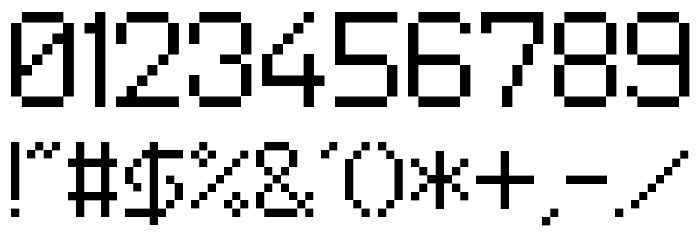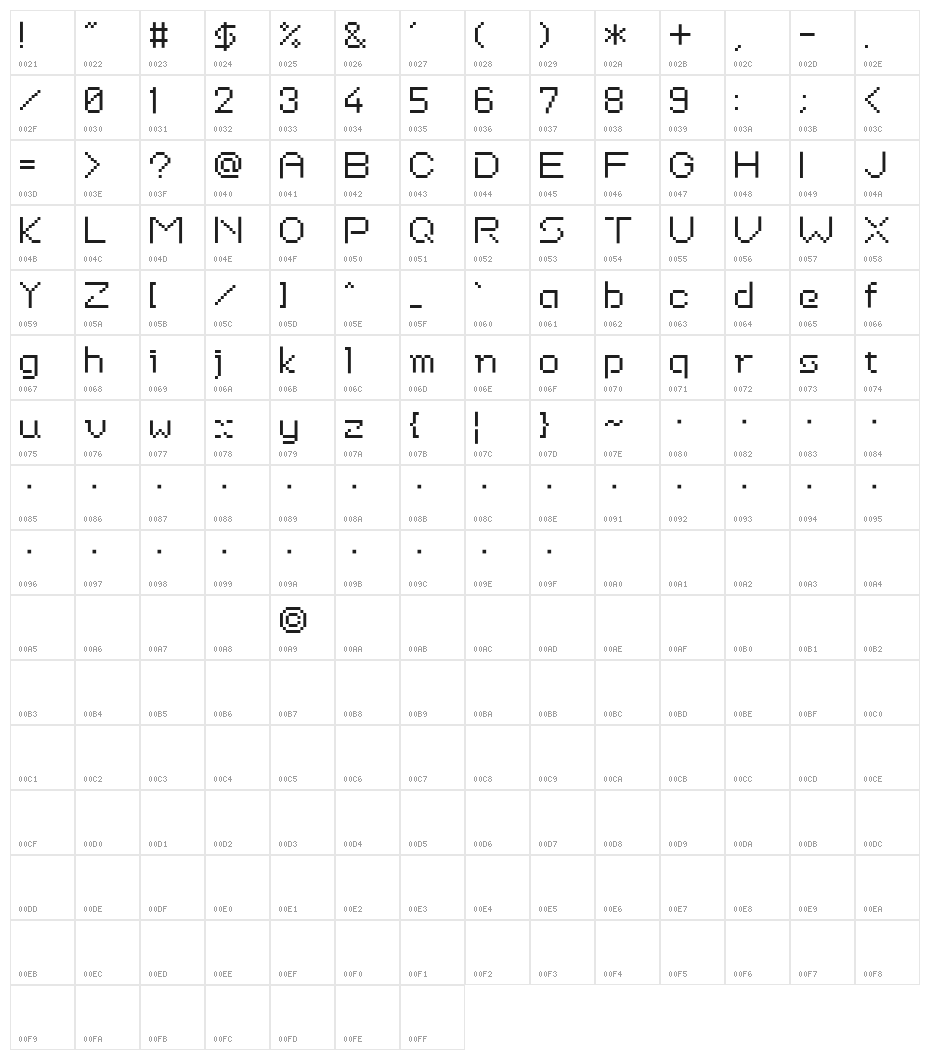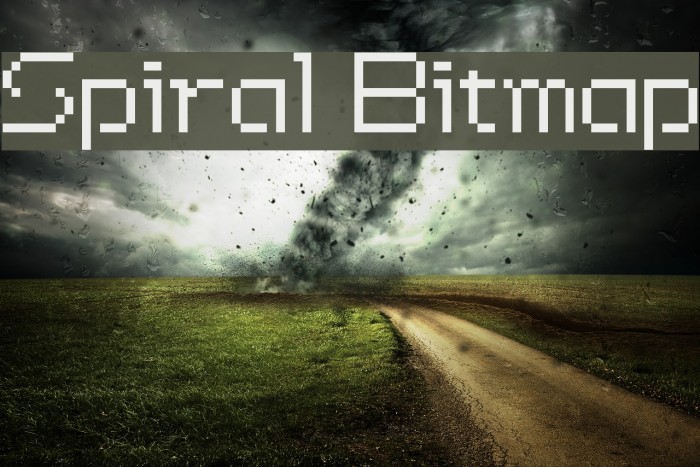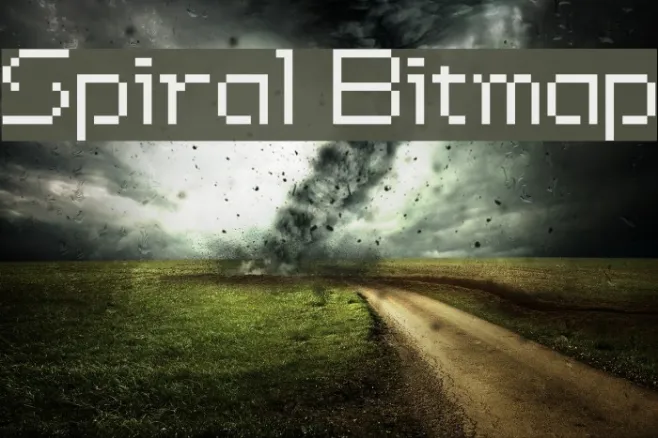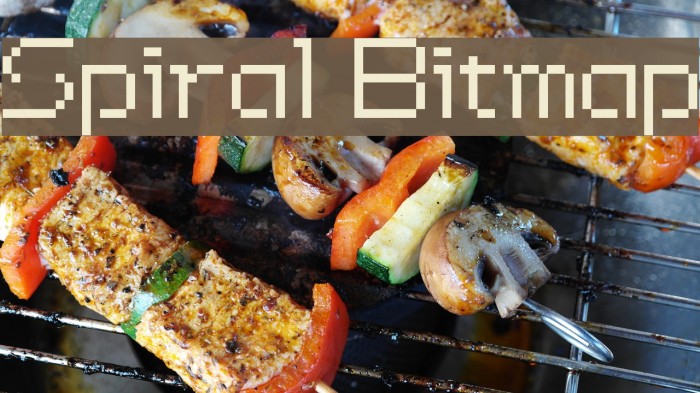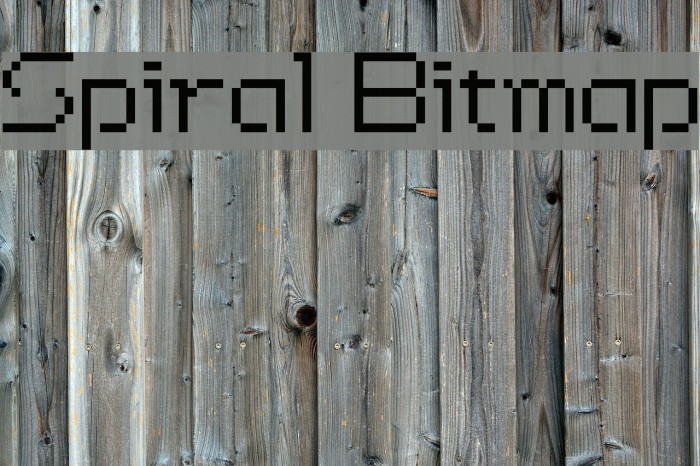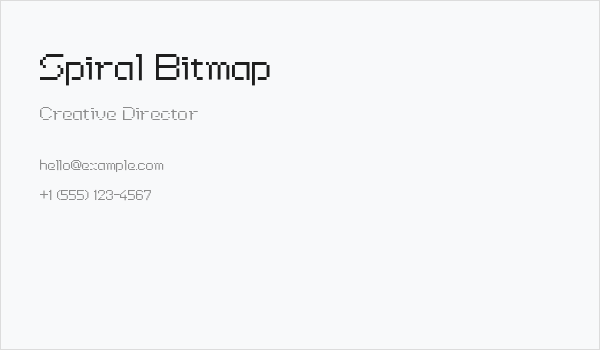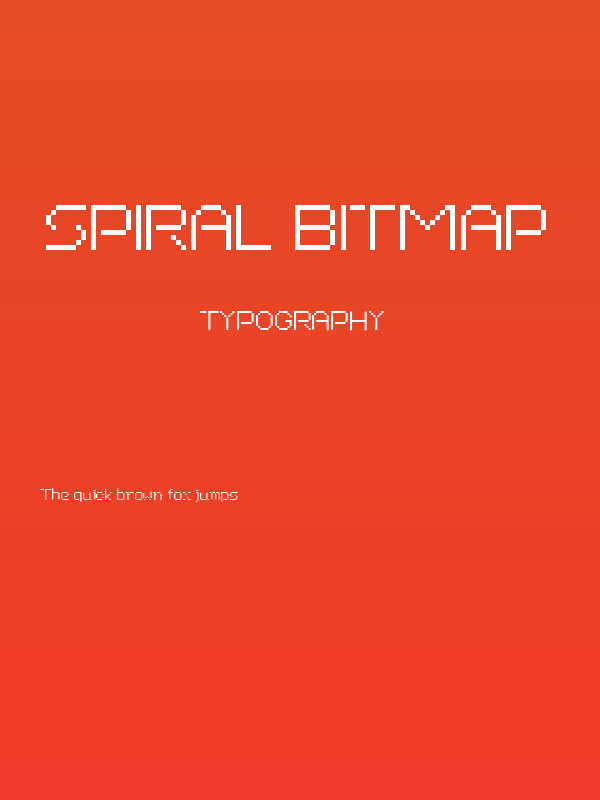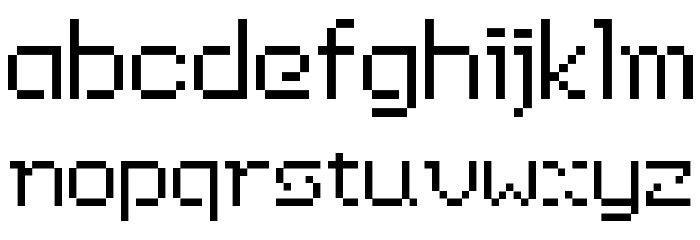
Spiral Bitmap Font
Spiral Bitmap Description
This font features a distinct pixelated design reminiscent of early digital displays and bitmap graphics. Each character is constructed with a grid-like precision, creating a retro and tech-inspired aesthetic. The uniformity in stroke width across all characters gives it a cohesive and structured appearance. Its geometric form is both functional and visually striking, making it ideal for digital and retro-themed projects. The uppercase and lowercase letters maintain a consistent height, while the numerals and special characters are crafted with the same pixelated style, ensuring a harmonious look throughout.
| Use Case | Logos, Headlines, Digital displays |
| Proposed Projects | Ideal for video game design, digital art projects, retro-themed graphics, and tech-related branding. |